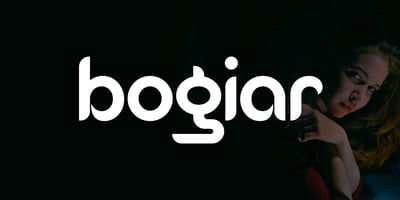
Bogiar
Bogiar font
Bogiar Font Family was designed by Saiful Anwar and published by Sealoung. Bogiar contains 1 styles and family package options. Bogiar Font is a meticulously crafted typeface designed specifically for logos, branding, headers, and titling. With precise kerning and spacing tailored for impactful logos and branding materials, Bigiar Font ensures your designs make a lasting impression. Please note, Bogiar Font is not suitable for body text, but excels in visual applications where every detail matters. Elevate your design projects with Bogiar Font today.